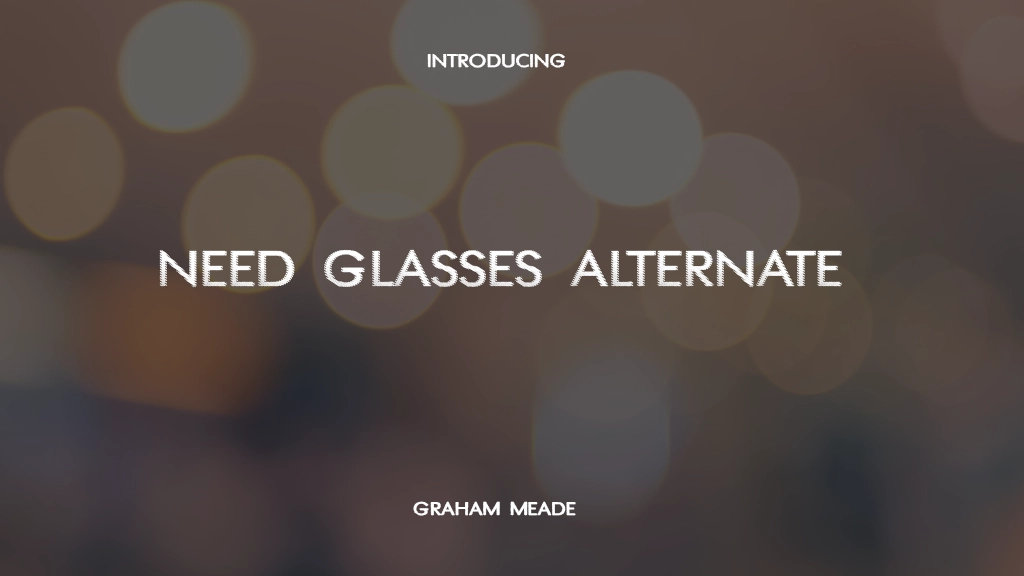
The Need Glasses Alternate font is a fun and playful font that can be used for a variety of designs.The font subfamily is Regular, which means that it has a standard weight and width.
Need Glasses Alternate
字体集 Need Glasses Alternate 字体
Need Glasses Alternate 字体,特殊字符排版集